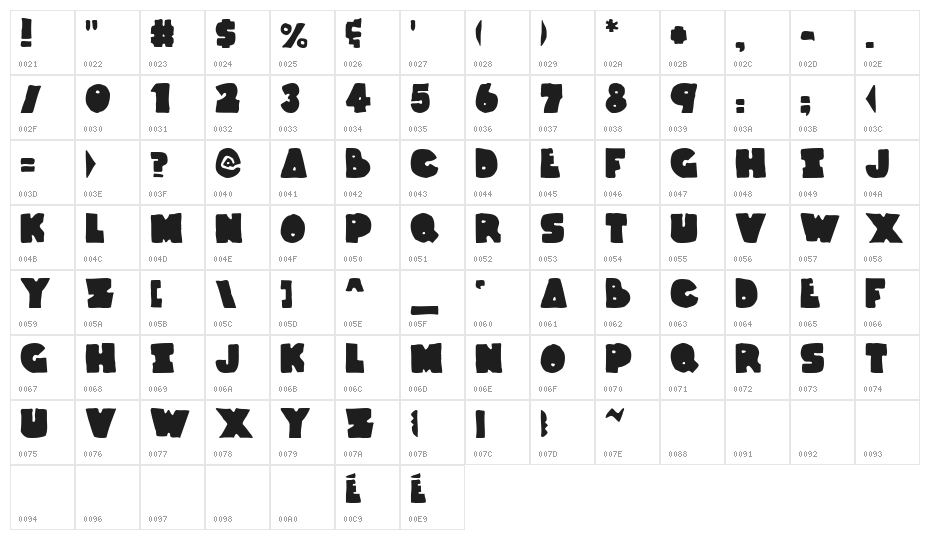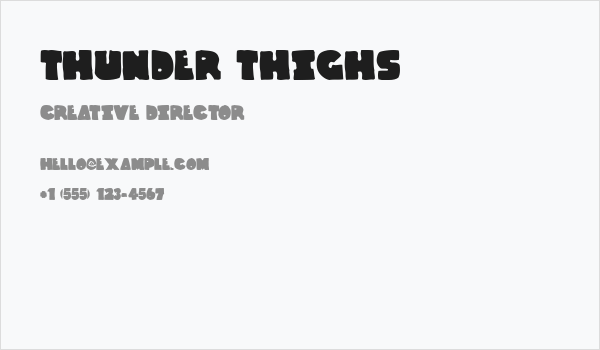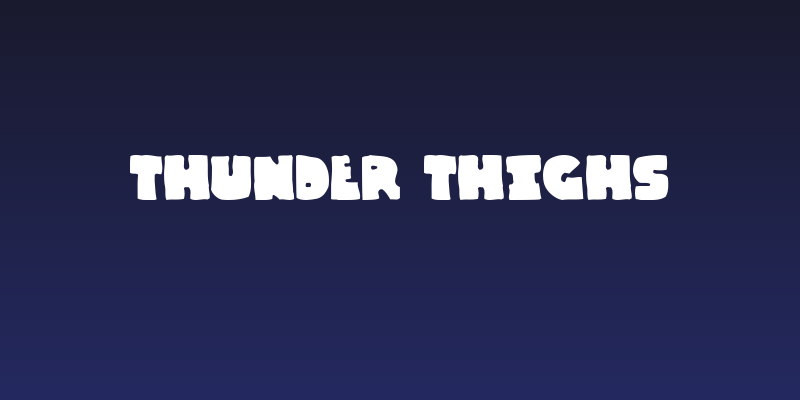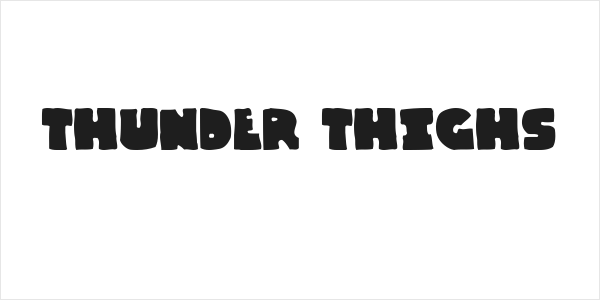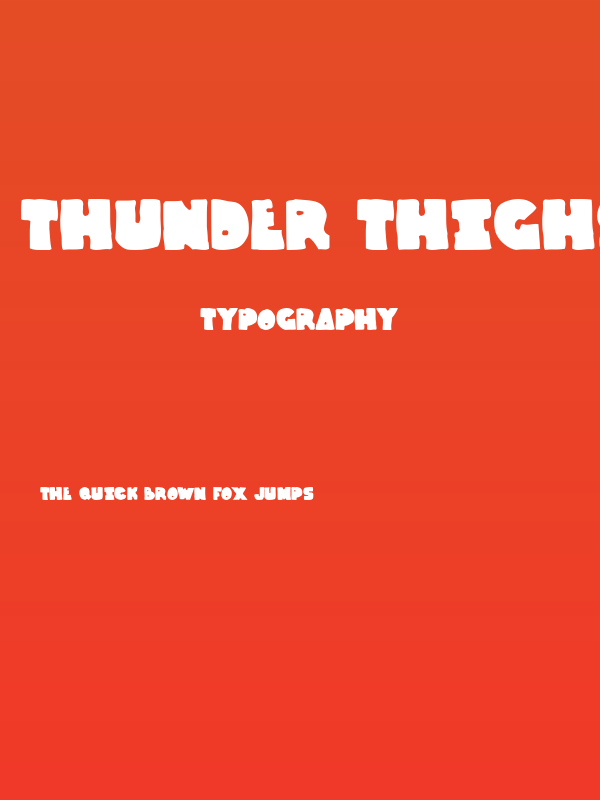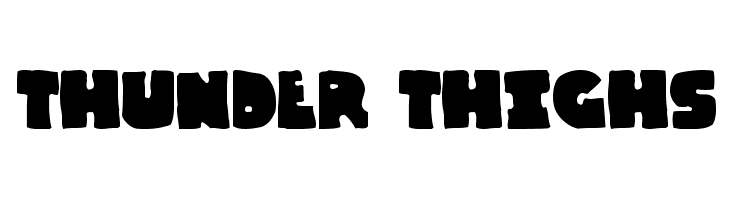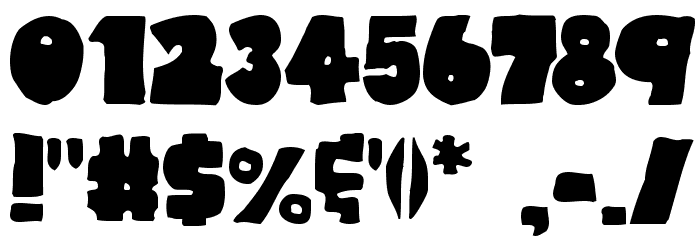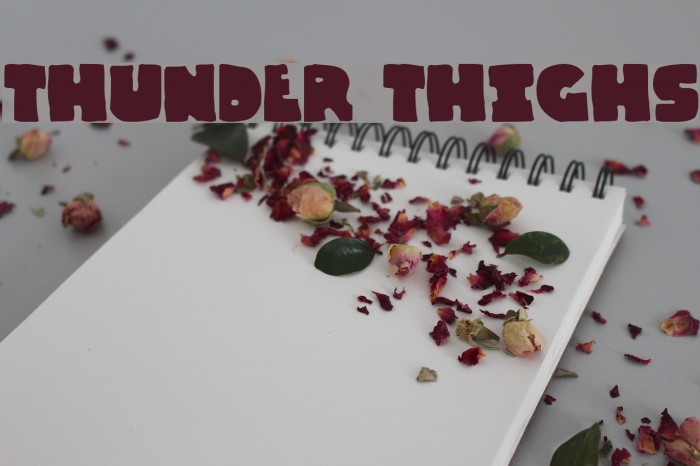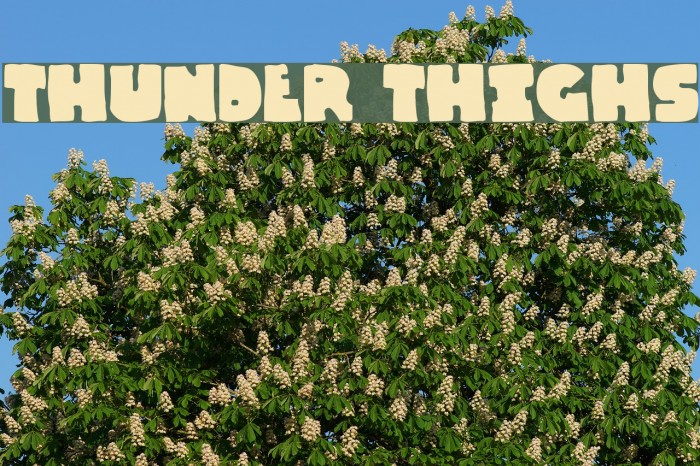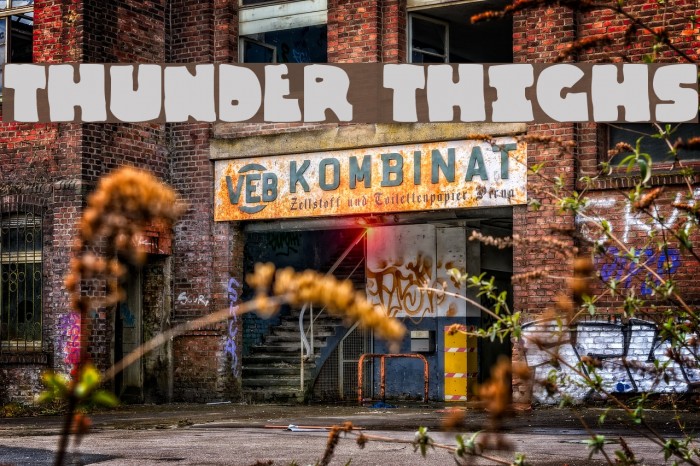
Thunder Thighs Font
Thunder Thighs Description
This font is bold and playful, featuring thick, rounded characters that convey a sense of fun and whimsy. The letters are heavily weighted with a cartoonish style, making them stand out with a strong visual impact. The characters have a uniform thickness, contributing to a cohesive and chunky appearance. The exaggerated curves and soft edges give it a friendly and approachable feel, ideal for projects that require a lively and energetic touch. The numbers and special characters maintain the same playful aesthetic, ensuring consistency across all text elements.
| Overall Style | Playful |
| Proposed Projects | Perfect for children's books, comic strips, playful branding, and event posters. |